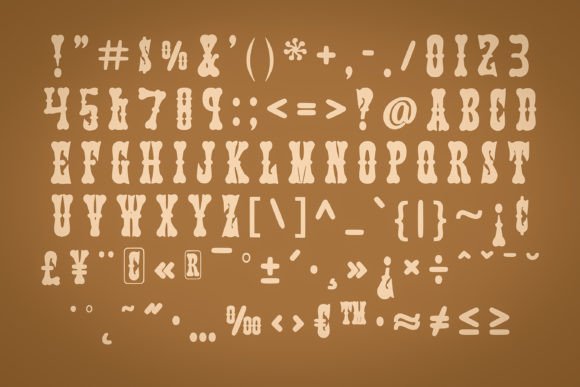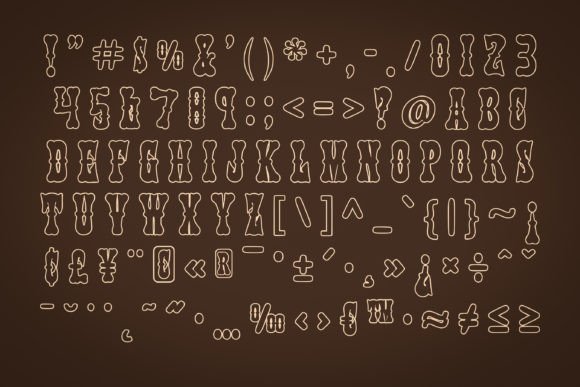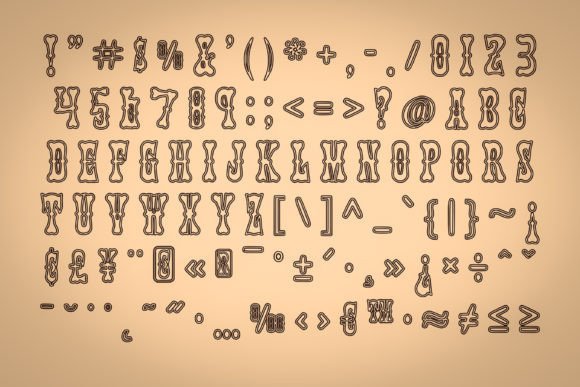
Jukebox Hero Font
Jukebox Hero is an all-caps, blackletter western font. Fall in love with its incredibly versatile style and use it to create gorgeous wedding invitations, beautiful stationary art, eye-catching social media posts, and much more!